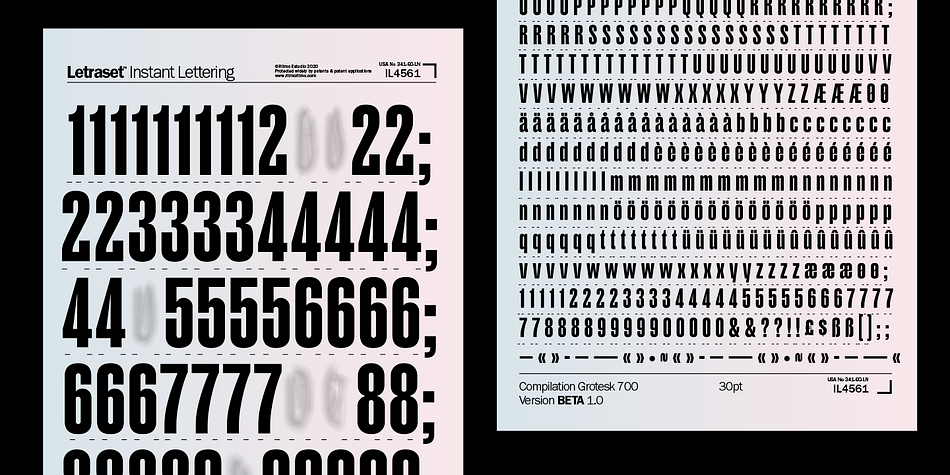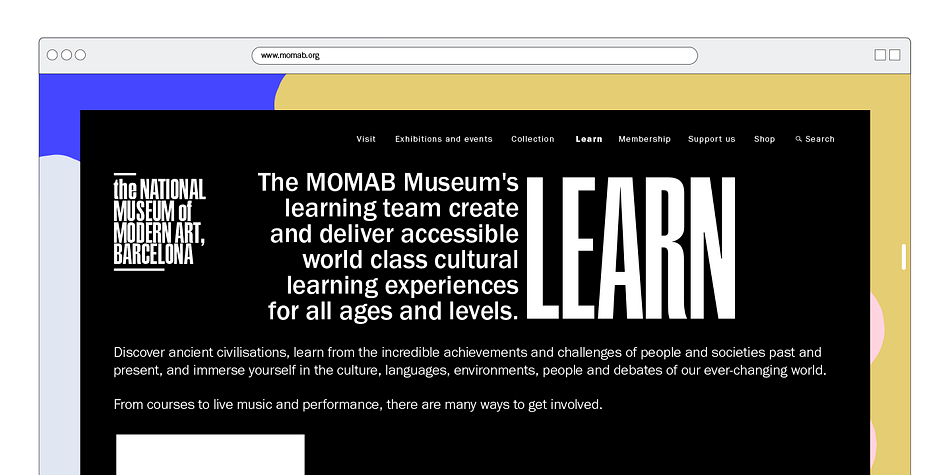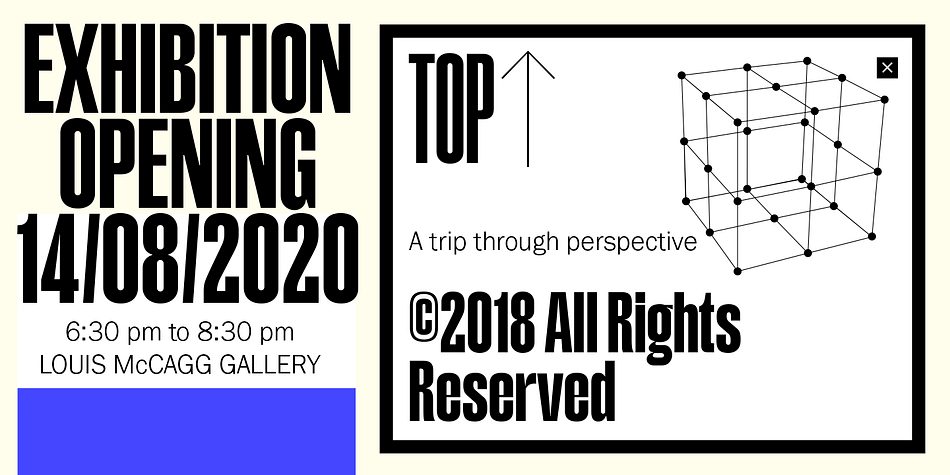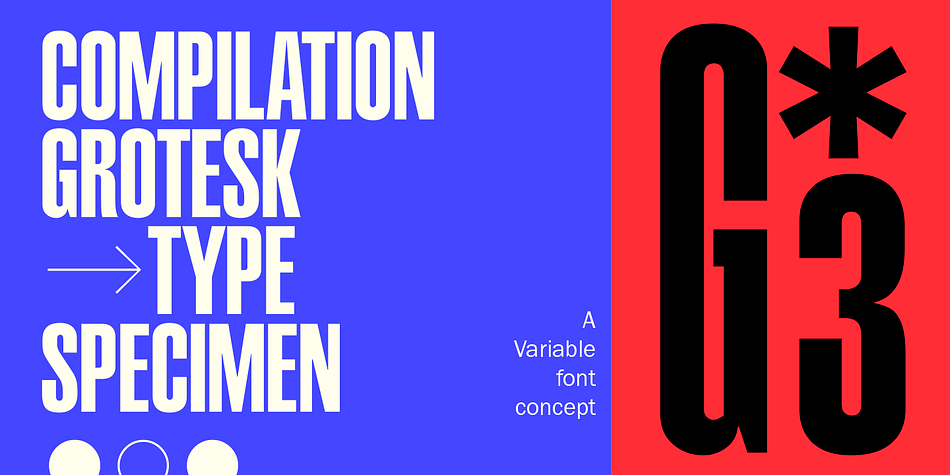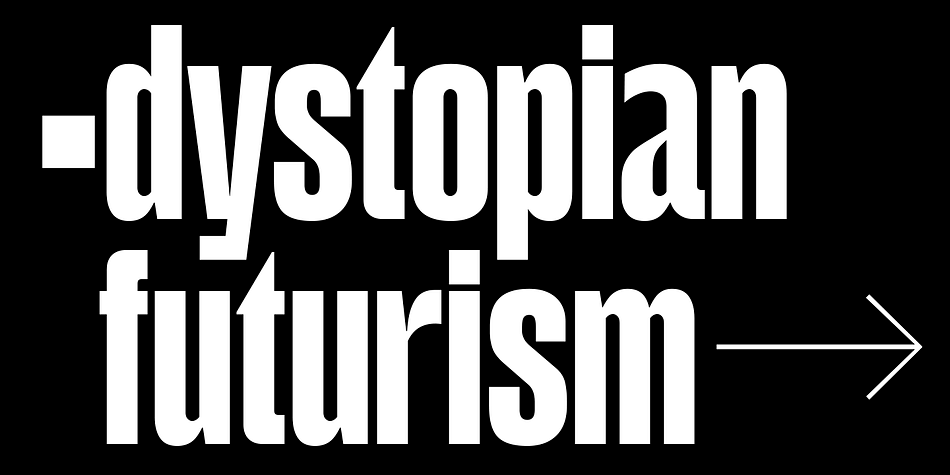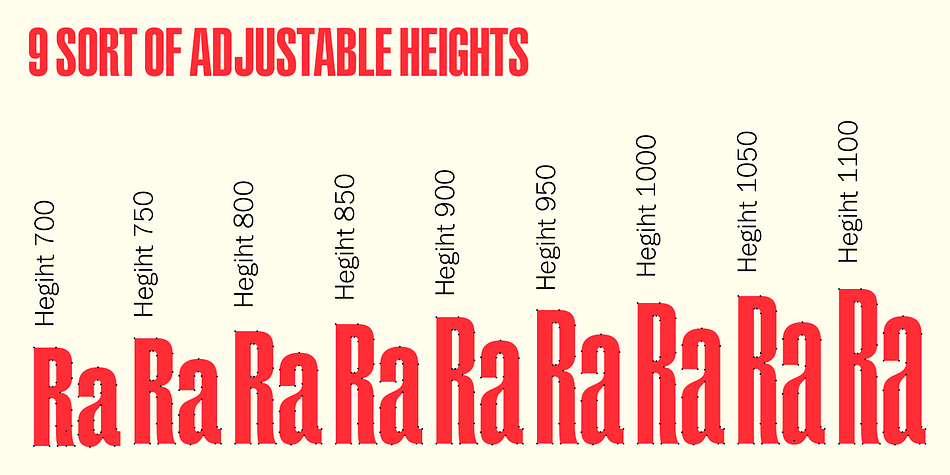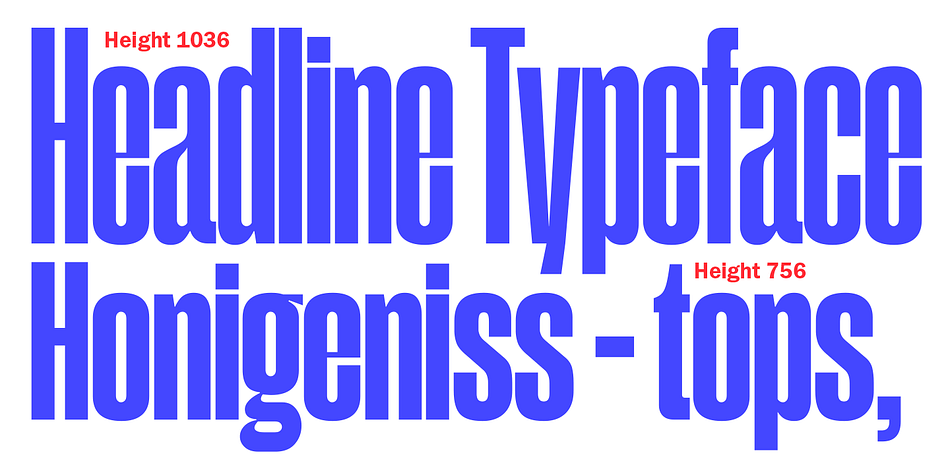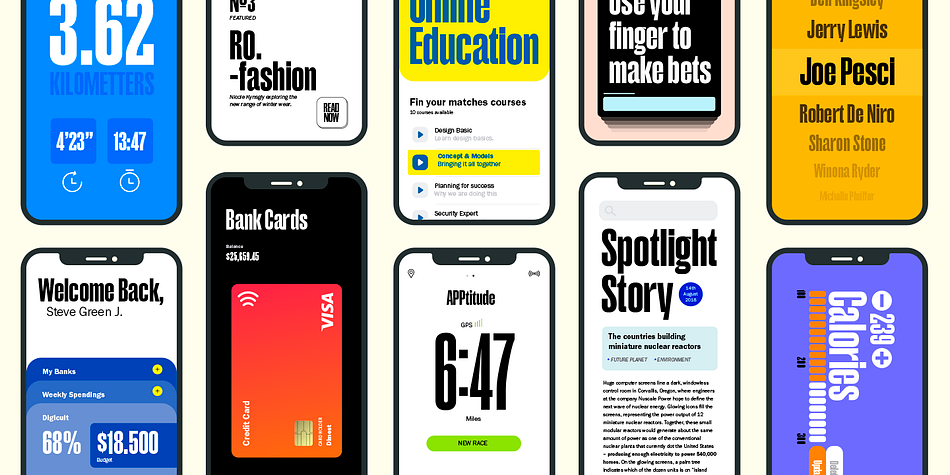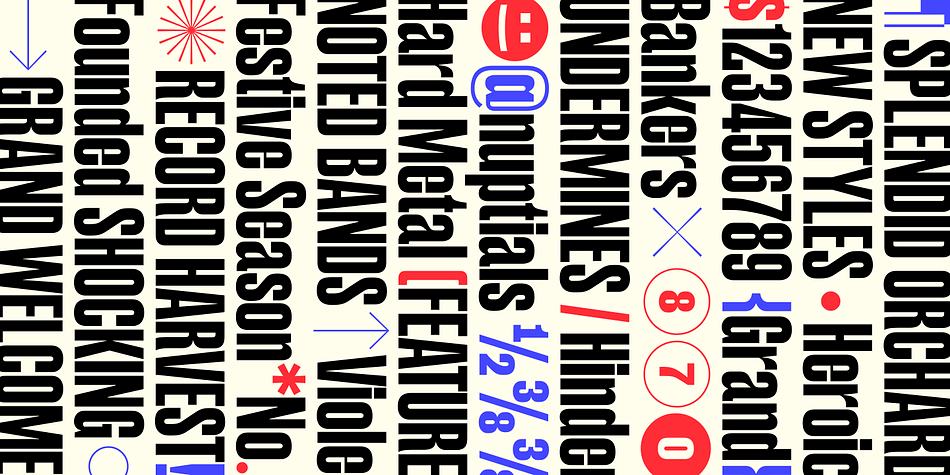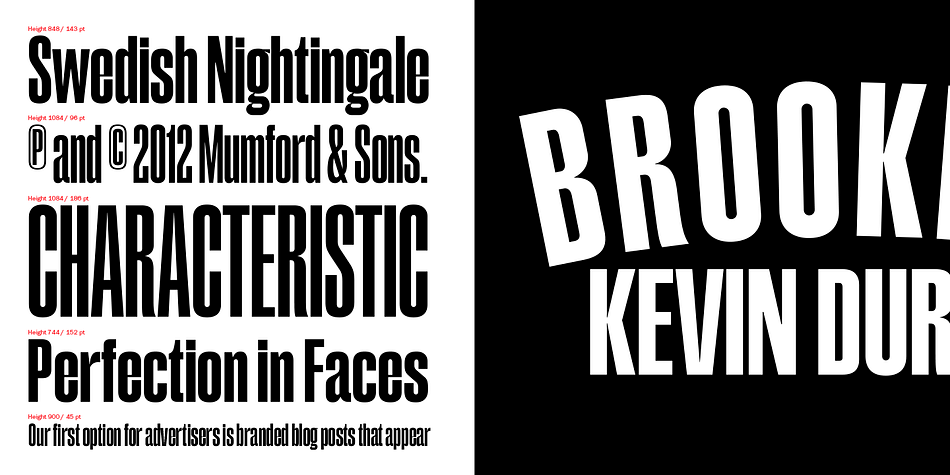
RT Compilation Grotesk is a sans serif font family. This typeface has nine styles and was published by Estudio Calderón.
Compilation Grotesk is a variable font concept that includes 9 sort of adjustable heights inspired principally on Matterhorn Headliners 2. The “height” axis allowes the glyphs expand along the Y-axis upward from the baseline as the values increases from 700 to 1100. Due to it, the system adapts keeping the contrast and the original proportions. Don’t stretch it out, just adjust it!